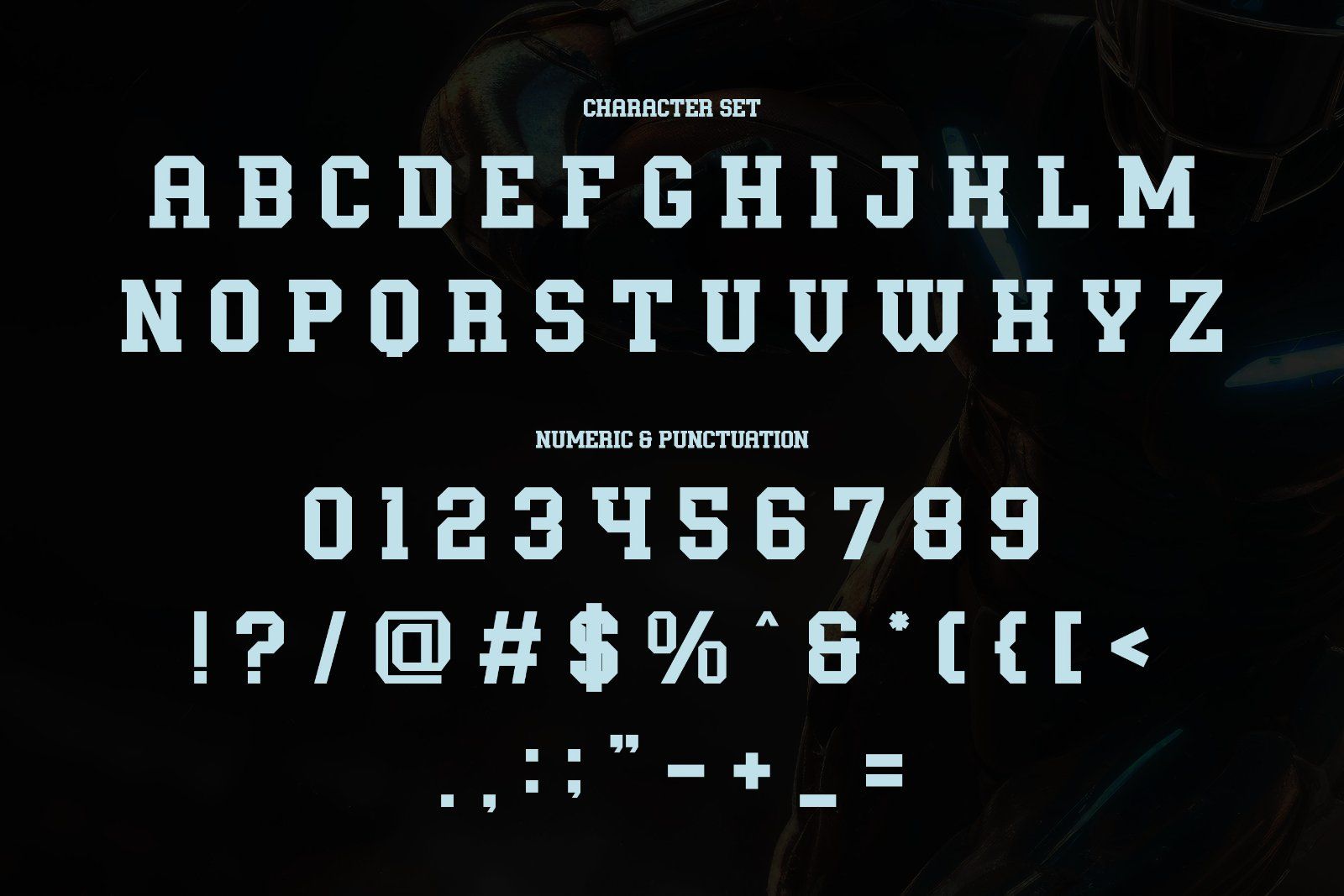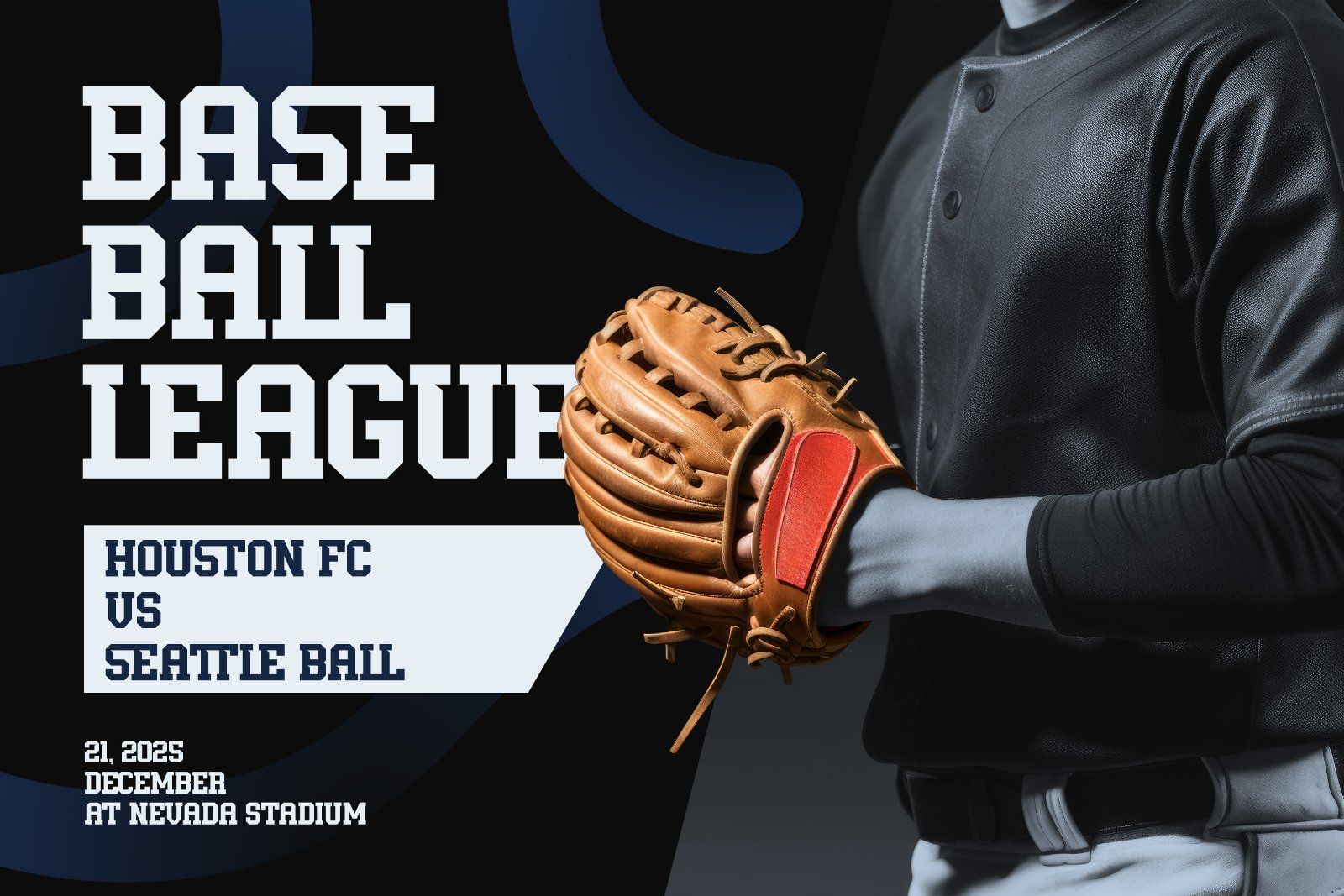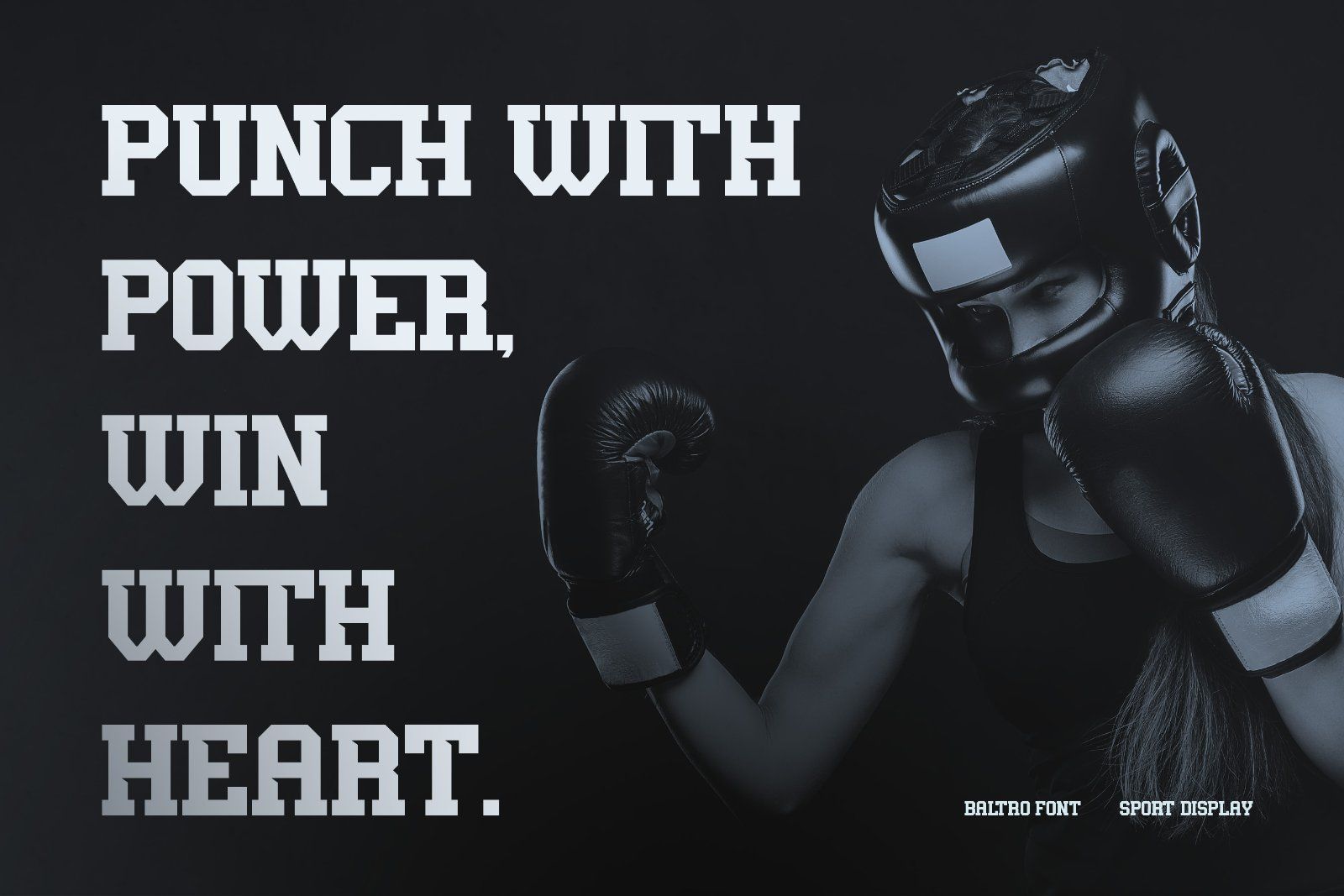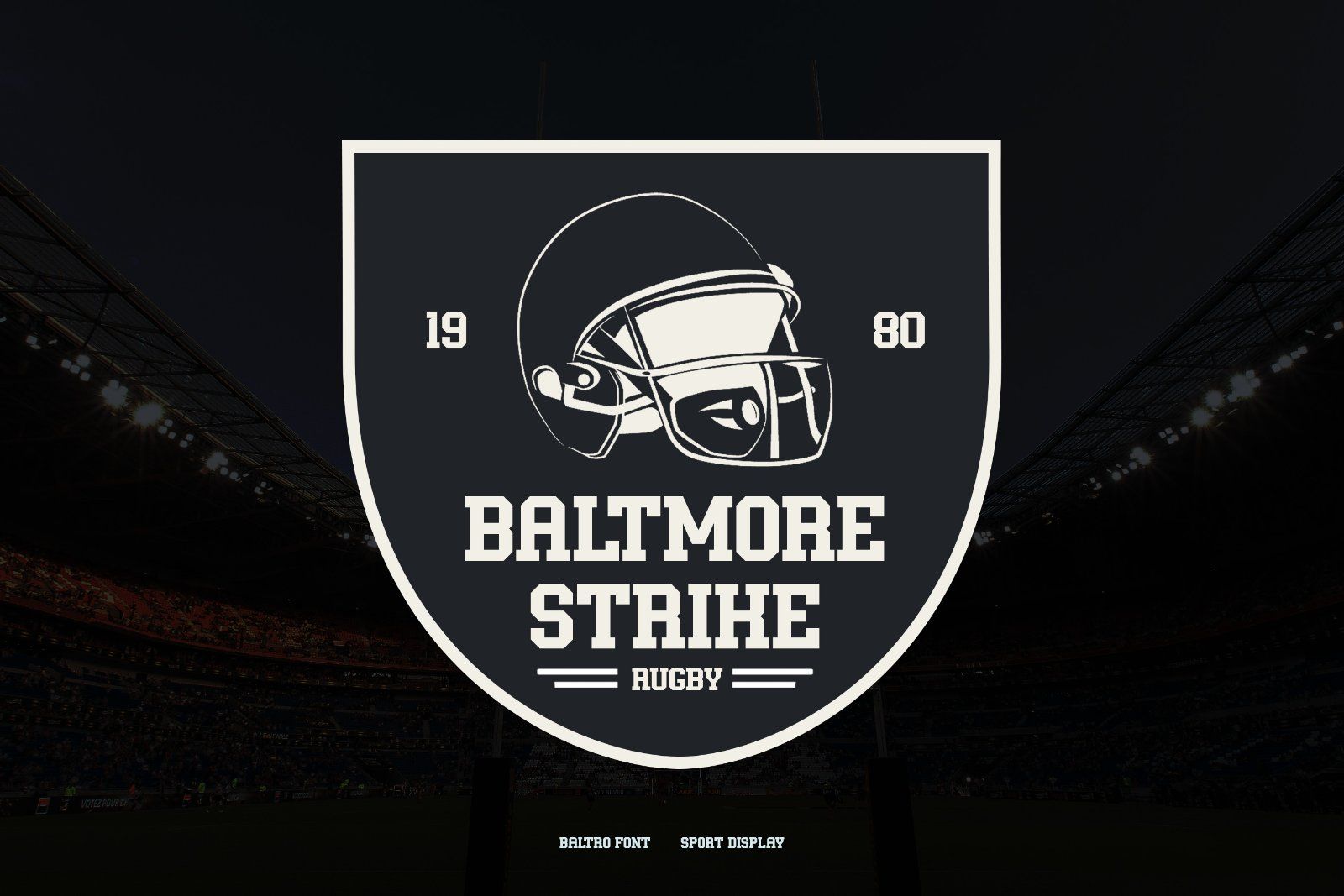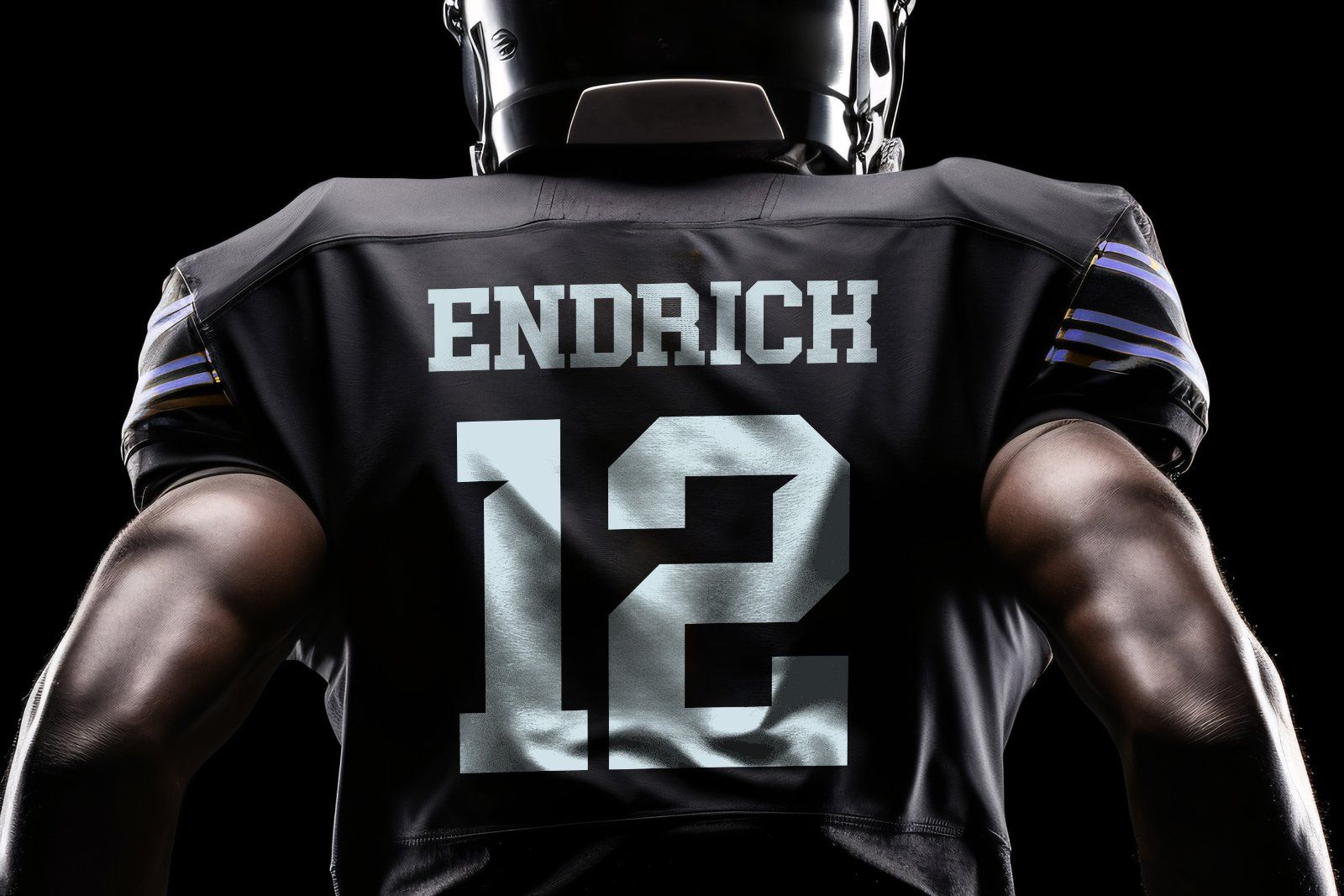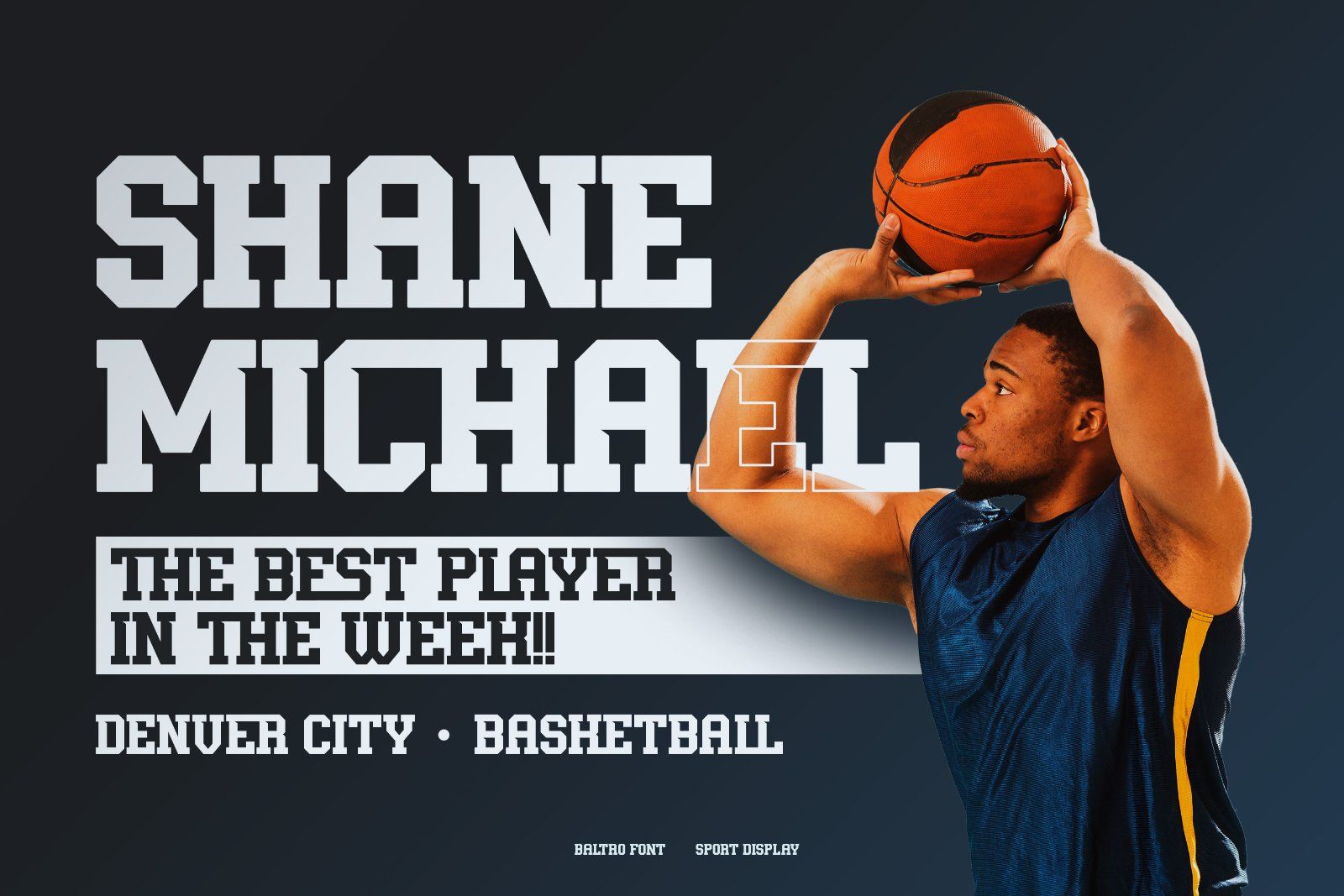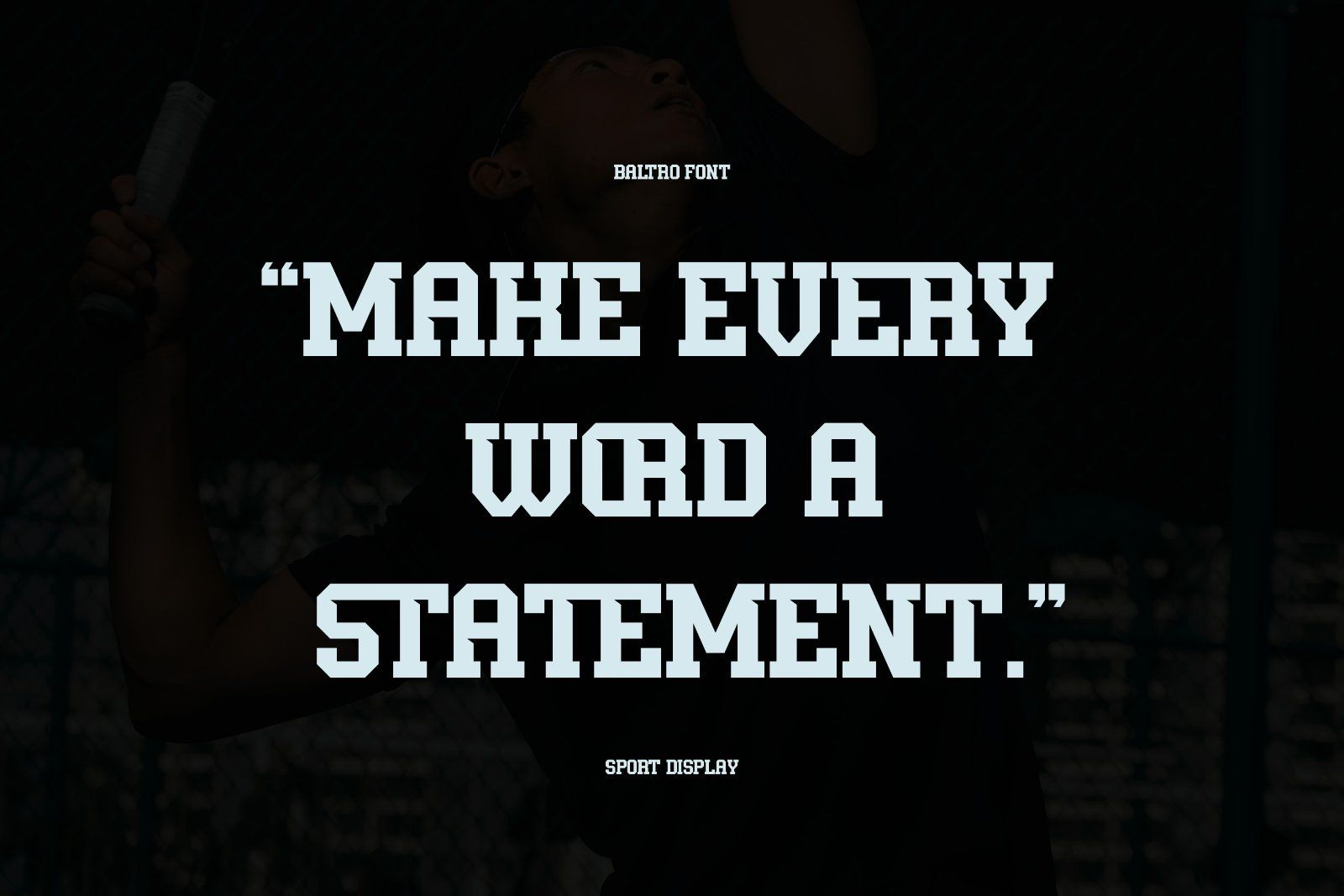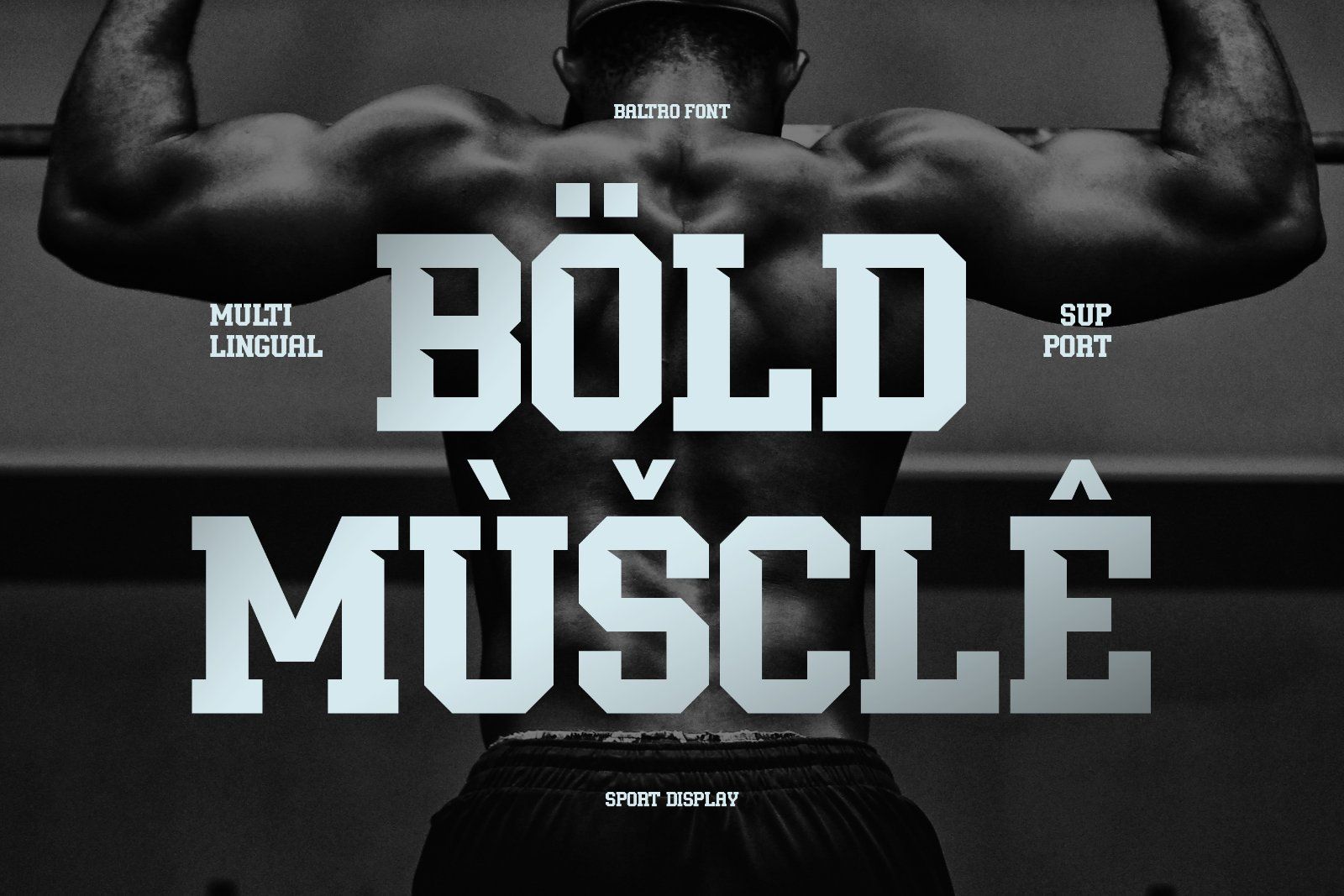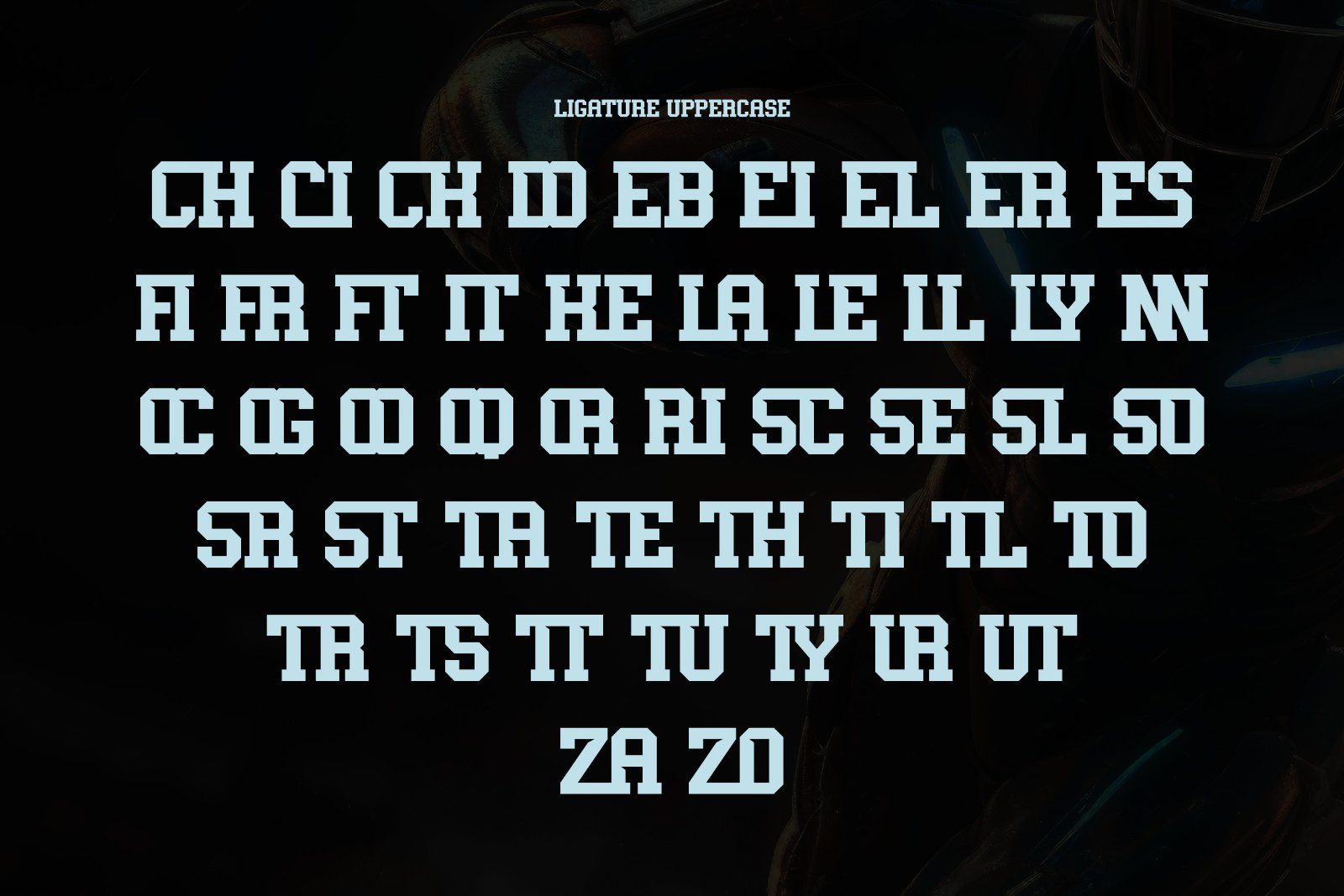
Baltro is a bold sport display font built for strength and impact. With its solid shapes and confident design, Baltro brings energy and power to every project. Packed with dynamic letterforms and full multilingual support, it’s perfect for jerseys, posters, sports branding, and striking headlines.
• Uppercase alphabet A-Z
• Lowercase alphabet a-z
• Numbers 0-9
• Some punctuation
• Some Alternates and Ligatures